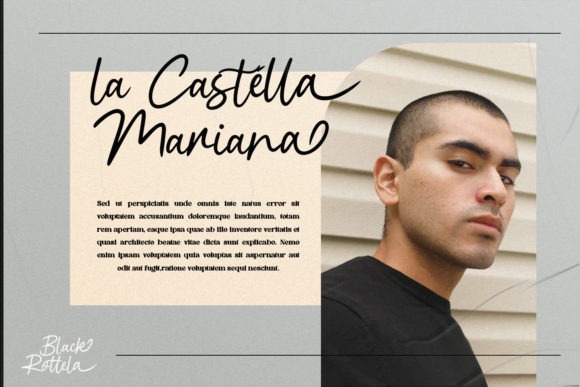
Black Rotela Handwritten Font
It’s a stylish handwritten script font crafted & designed by TempCraft. This enchanting font was made with digital brush pen strokes and it features an authentic feel. Add this font to your most creative ideas, and notice how it makes them stand out! This font is PUA encoded which means you can access all of the beautiful glyphs and swashes with ease!